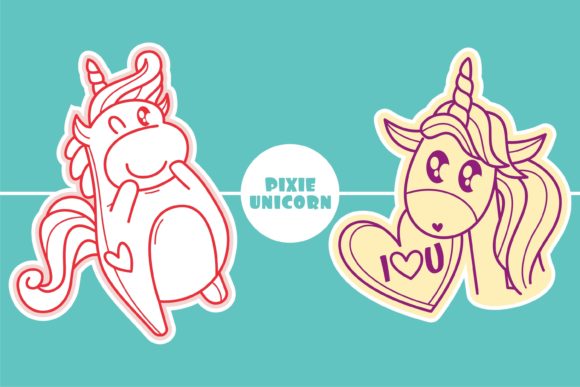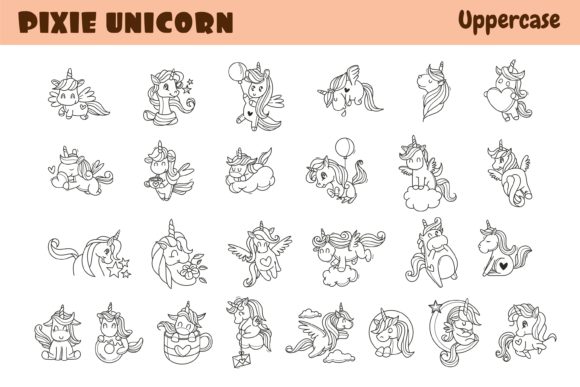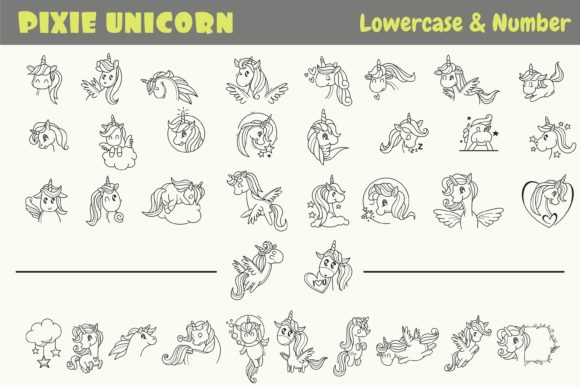
Introduction to Pixie Unicorn Font
Pixie Unicorn is a playful typeface featuring a wide range of cartoon unicorn.
Its distinct style makes it incredibly fitting to a large pool of designs Whether you’re using it for crafting, digital designing, presentations, or greeting card making, it’s perfect.
Why Choose Pixie Unicorn Font?
Pixie Unicorn Font offers exceptional quality and versatility, making it a valuable addition to your design toolkit. Whether you’re creating for personal projects or commercial use, Pixie Unicorn Font delivers professional results.